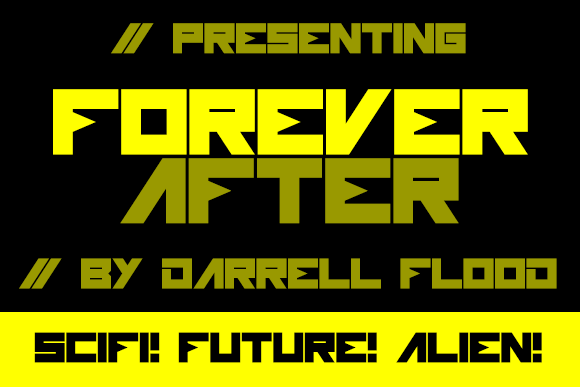
Forever After
Forever After Font
Forever After is a modern, angular font in a futuristic style. This display font has sharp points and flipped characters that add a unique style